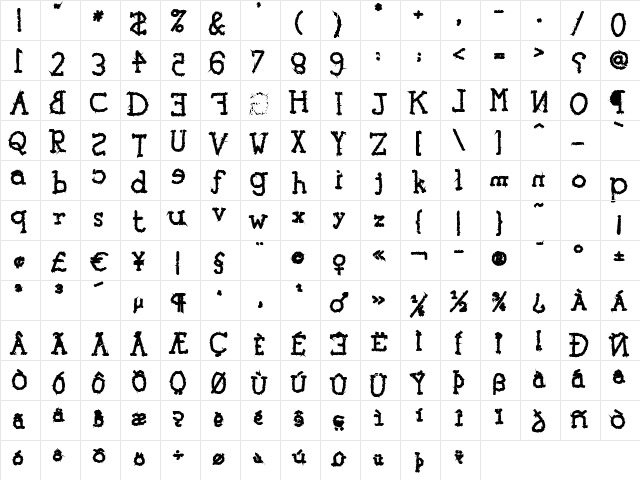
tYpEwRiTeR's ReVeNgE! Regular
Design Context for tYpEwRiTeR's ReVeNgE! Typeface
tYpEwRiTeR's ReVeNgE! brings the precise, column-aligned rhythm of monospaced typography to designs that value technical clarity and systematic order.
Pro Tip: Pair tYpEwRiTeR's ReVeNgE! with a proportional sans for UI contexts where code-style labels and regular body copy need to coexist.